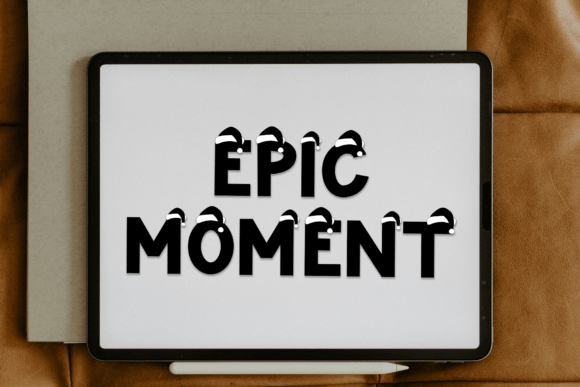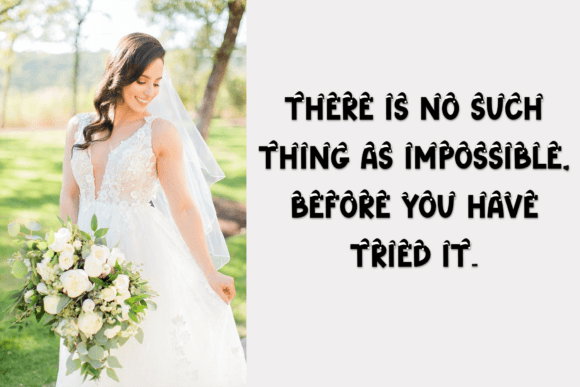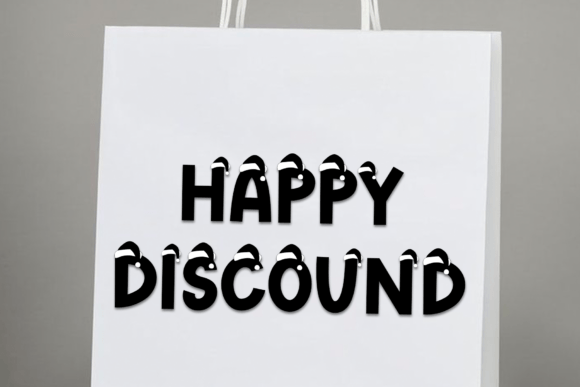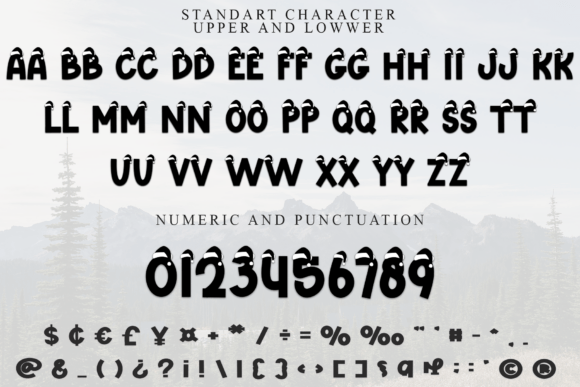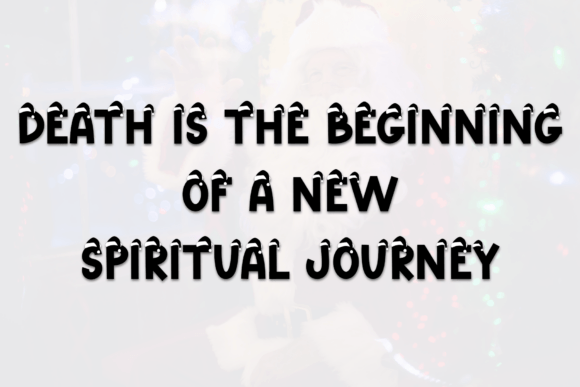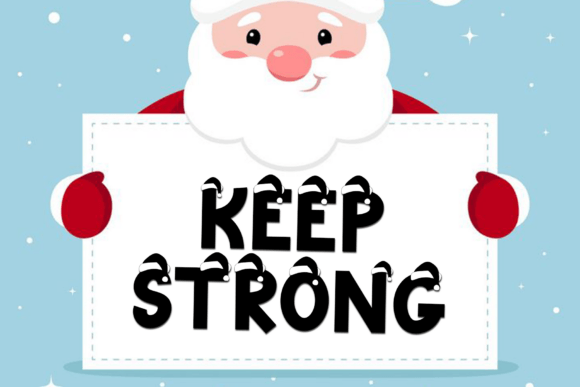
Introducing Happines Santa Font: Elevate Your Designs with Elegance and Sophistication
Are you tired of using the same old fonts in your designs? Look no further! Happines Santa Font is here to revolutionize the way you approach typography. This stunning font is designed to bring a touch of elegance and sophistication to your work, making it perfect for a wide range of applications. In this article, we’ll dive into the features and benefits of Happines Santa Font, and explore how it can elevate your designs to the next level.
A Beautifully Crafted Font
Happines Santa Font is a very beautiful font, carefully crafted to provide a smooth touch and beautiful strokes that will give your work a natural feel. The font’s unique design makes it stand out from the crowd, adding a touch of personality to your designs. Whether you’re working on a logo, banner, or social media graphic, Happines Santa Font is sure to make a lasting impression.
One of the best things about Happines Santa Font is its versatility. This font is suitable for a wide range of applications, including:
- Banners: Create eye-catching banners for events, promotions, or sales with Happines Santa Font.
- YouTube Thumbnails: Stand out on YouTube with custom thumbnails that showcase your brand’s personality.
- Logo Designs: Create professional-looking logos that make a lasting impression.
- Wedding Invitation Cards: Add a touch of elegance to your wedding invitations with Happines Santa Font.
- Clothing Mockups: Design stunning clothing mockups that showcase your brand’s style.
- T-Shirts: Create custom t-shirts that make a statement.
Why Choose Happines Santa Font?
So, why should you choose Happines Santa Font for your next design project? Here are just a few reasons:
- Unique Design: Happines Santa Font has a unique design that sets it apart from other fonts.
- Elegant and Sophisticated: This font adds a touch of elegance and sophistication to your designs.
- Versatile: Happines Santa Font is suitable for a wide range of applications.
- Easy to Read: The font is easy to read, making it perfect for body text and headlines.
Tips for Using Happines Santa Font
Here are a few tips for using Happines Santa Font in your designs:
- Pair it with Other Fonts: Experiment with pairing Happines Santa Font with other fonts to create a unique look.
- Use it for Headlines: Use Happines Santa Font for headlines and titles to add a touch of elegance.
- Experiment with Colors: Try out different colors to see what works best with Happines Santa Font.
In conclusion, Happines Santa Font is a beautiful and versatile font that can elevate your designs to the next level. With its unique design, elegant strokes, and wide range of applications, this font is perfect for designers and crafters looking to add a touch of sophistication to their work. So why wait? Download Happines Santa Font today and start creating stunning designs that make a lasting impression!
Whether you’re a professional designer or a DIY crafter, Happines Santa Font is sure to become a staple in your design toolkit. So go ahead, get creative, and see what amazing designs you can come up with using Happines Santa Font!